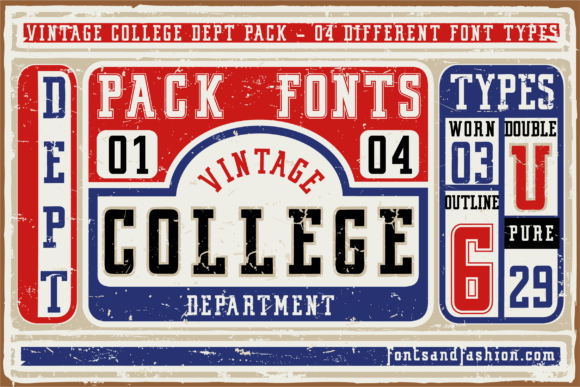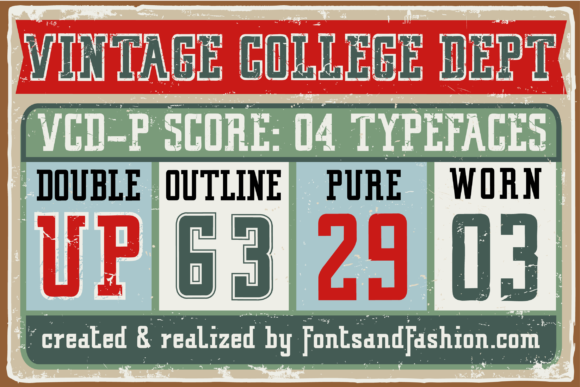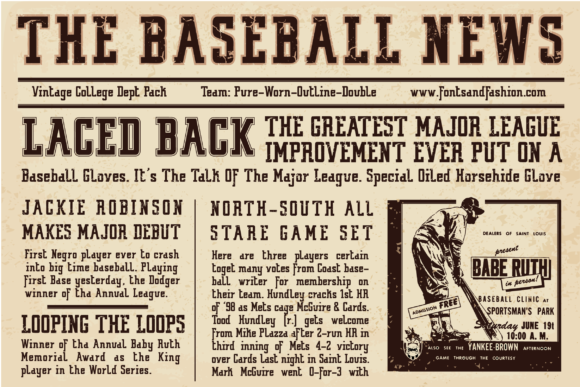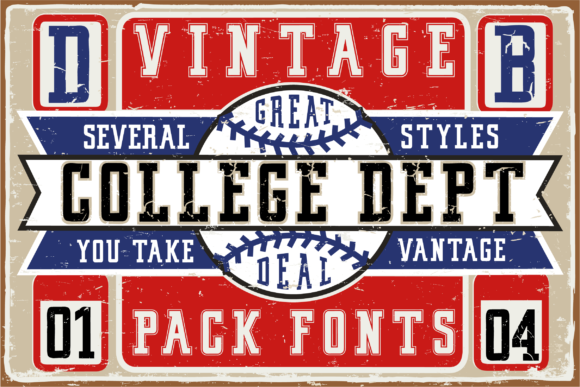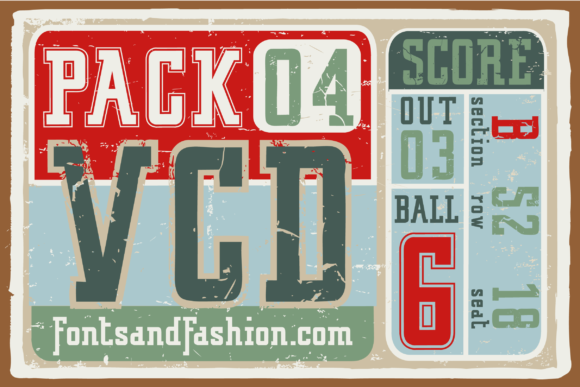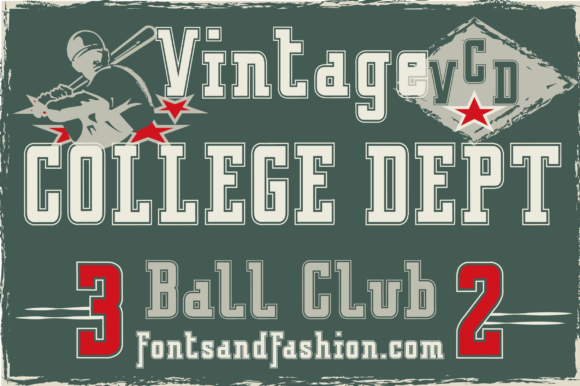
Vintage College Font
VINTAGE COLLEGE FONT SPECIMEN
Vintage College is a family of 4 different slab serif fonts. Although it has a geometric shape, its rounded finish provides it with a warm appearance,.
It would make an ideal tool to design posters, banners, and to print artwork for promotional campaigns.